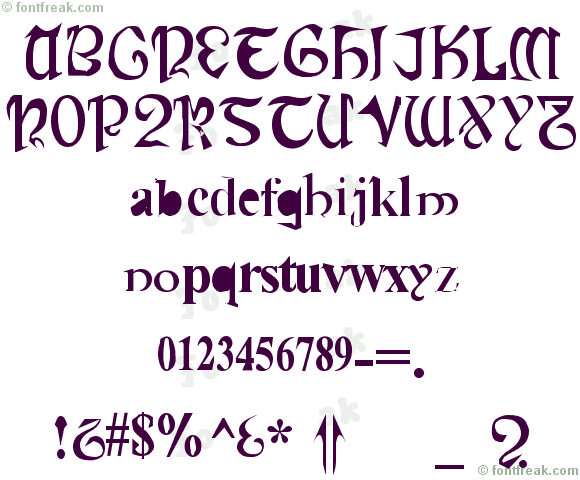
Cauldron Medium
About Cauldron
The Cauldron font by Graphics Art Us is a captivating display typeface that embodies a unique blend of creativity and elegance. Released under a freeware license, this font is perfect for those looking to elevate their design projects without any cost. The Cauldron font features a decorative style that is characterized by its playful curves and whimsical design. The stroke weight exhibits a moderate contrast, giving it a dynamic appearance that captures attention while maintaining readability. The spacing is well-balanced, allowing letters to breathe, which enhances overall legibility.
This font is particularly well-suited for a variety of use cases, including Halloween-themed invitations, fantasy book covers, and creative branding for artisanal businesses. Its distinctive flair makes it an excellent choice for eye-catching movie posters or promotional materials for events that aim to evoke a sense of magic and intrigue. Additionally, small business owners can leverage the Cauldron font to create unique signage or product labels that stand out in a crowded marketplace.
The target audience for this font includes graphic designers, content creators, and small business owners who desire to add a touch of creativity to their projects. Whether you are designing for a whimsical children’s party or crafting a rustic restaurant menu, the Cauldron font provides a versatile option that adapts to various themes and aesthetics.
What makes the Cauldron font truly stand out is its ability to blend artistry with function. Its enchanting design is not only visually appealing but also practical for various applications. Download the Cauldron font free today and let your creative projects come to life with its enchanting charm.